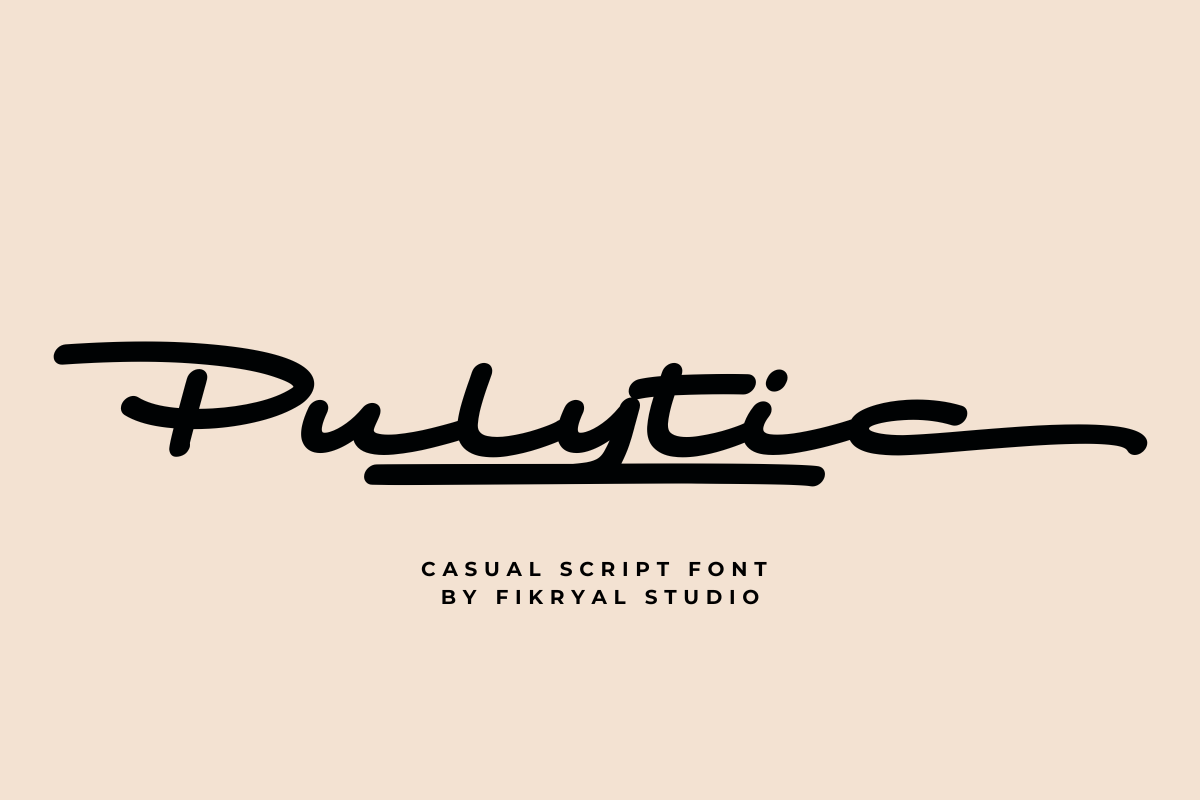
Pulytic - Casual Script Font
Pulytic is a casual and bold script font designed to add charm and personality to your projects. Its smooth curves and dynamic swash alternates make it a perfect choice for logos, packaging, social media posts, or any creative design where you want to stand out. Embrace its versatile style to create eye-catching and memorable designs!